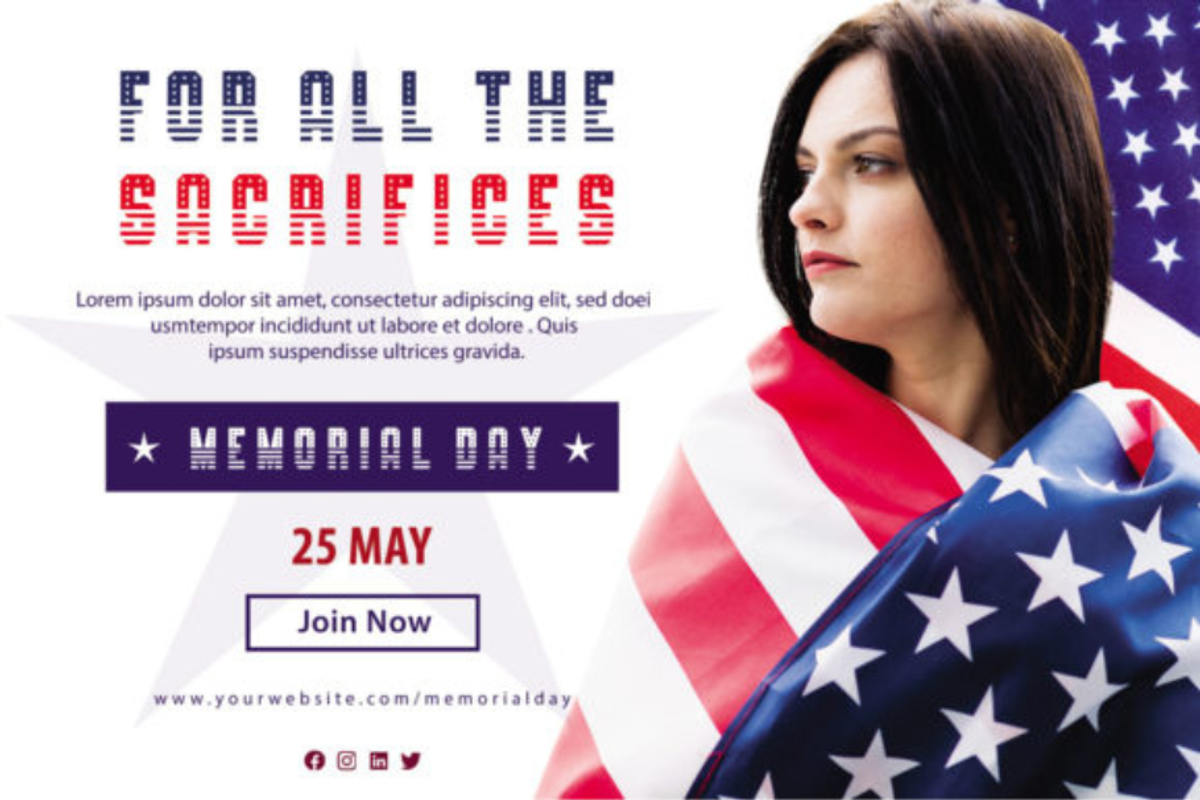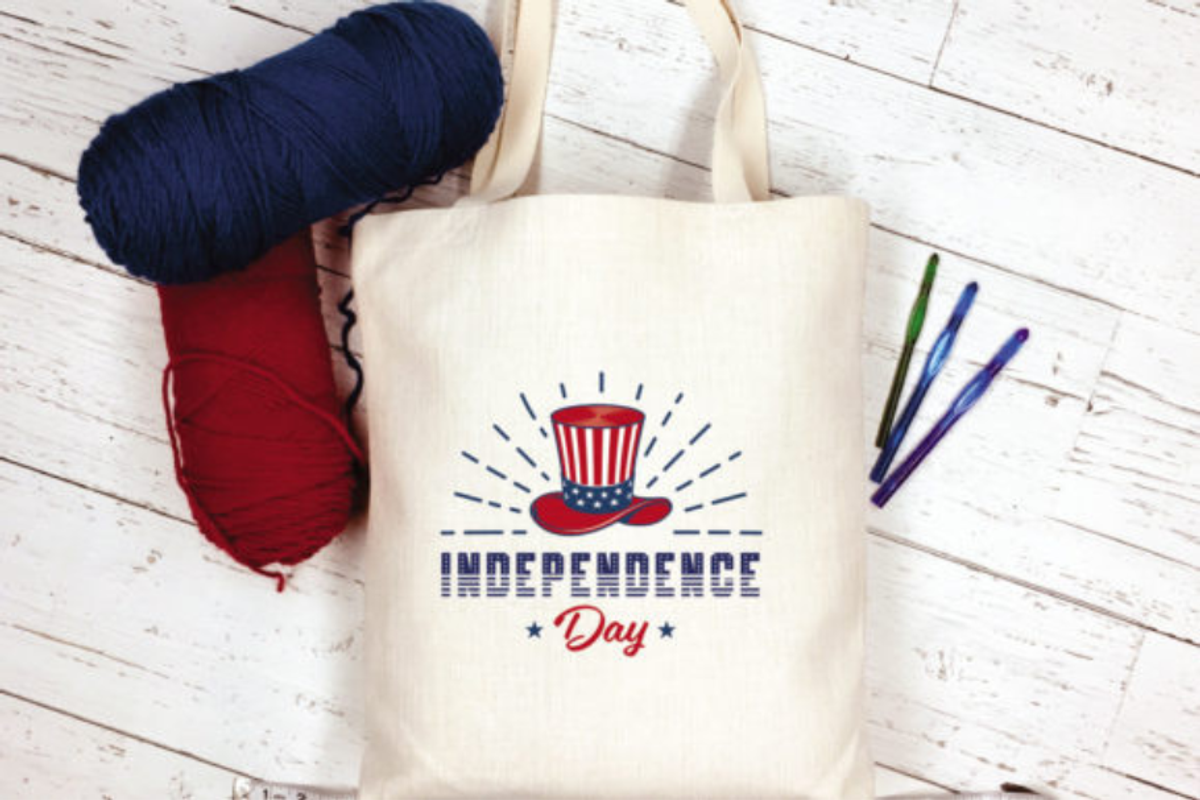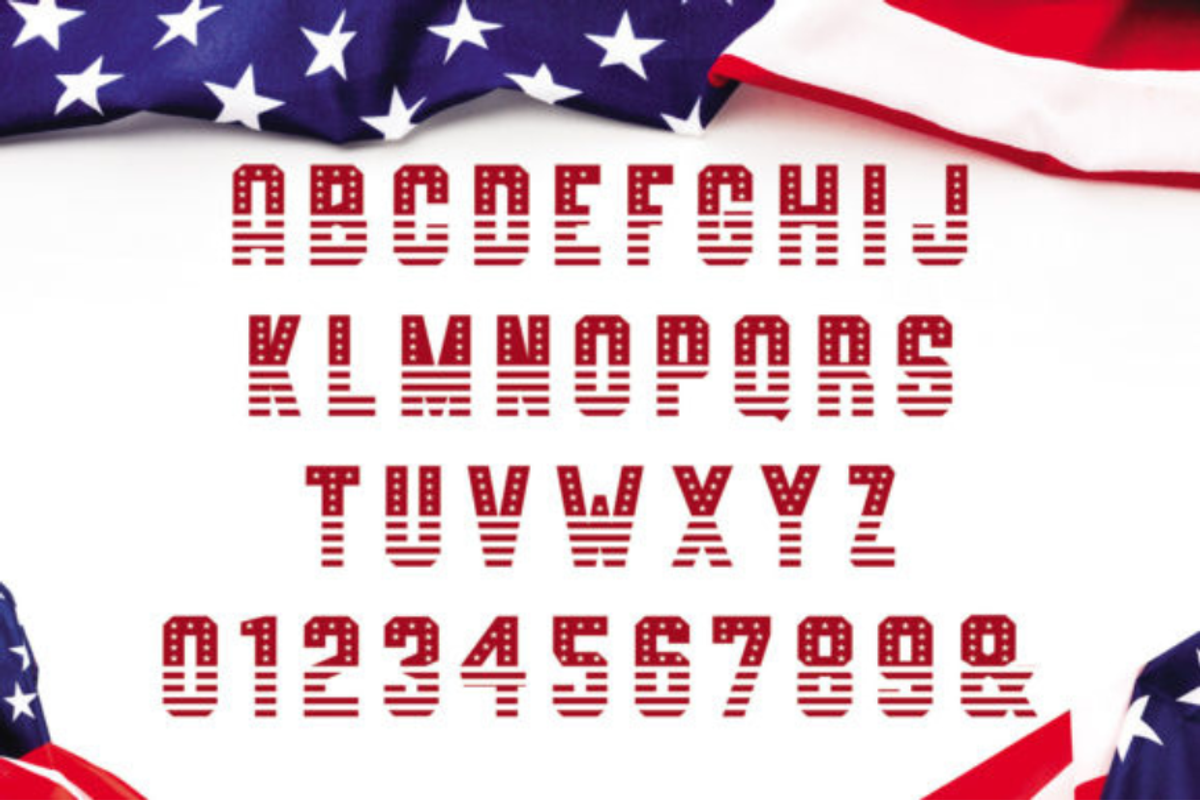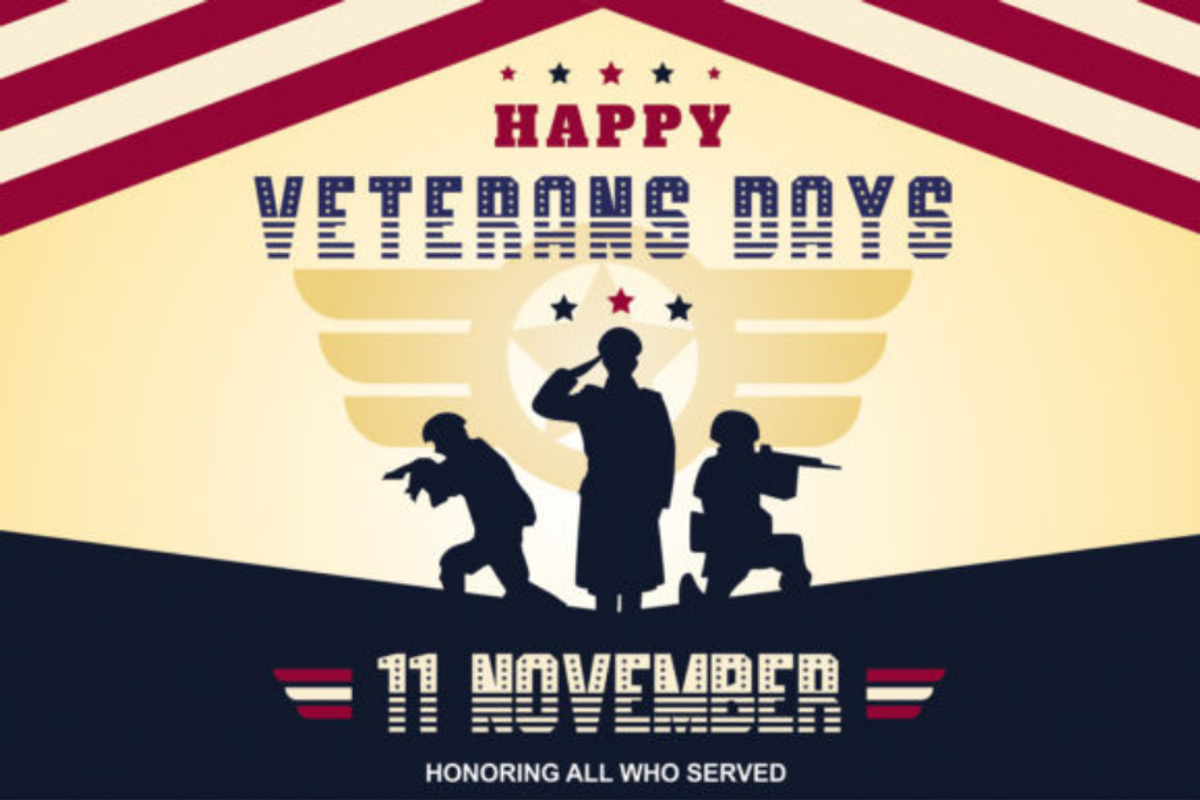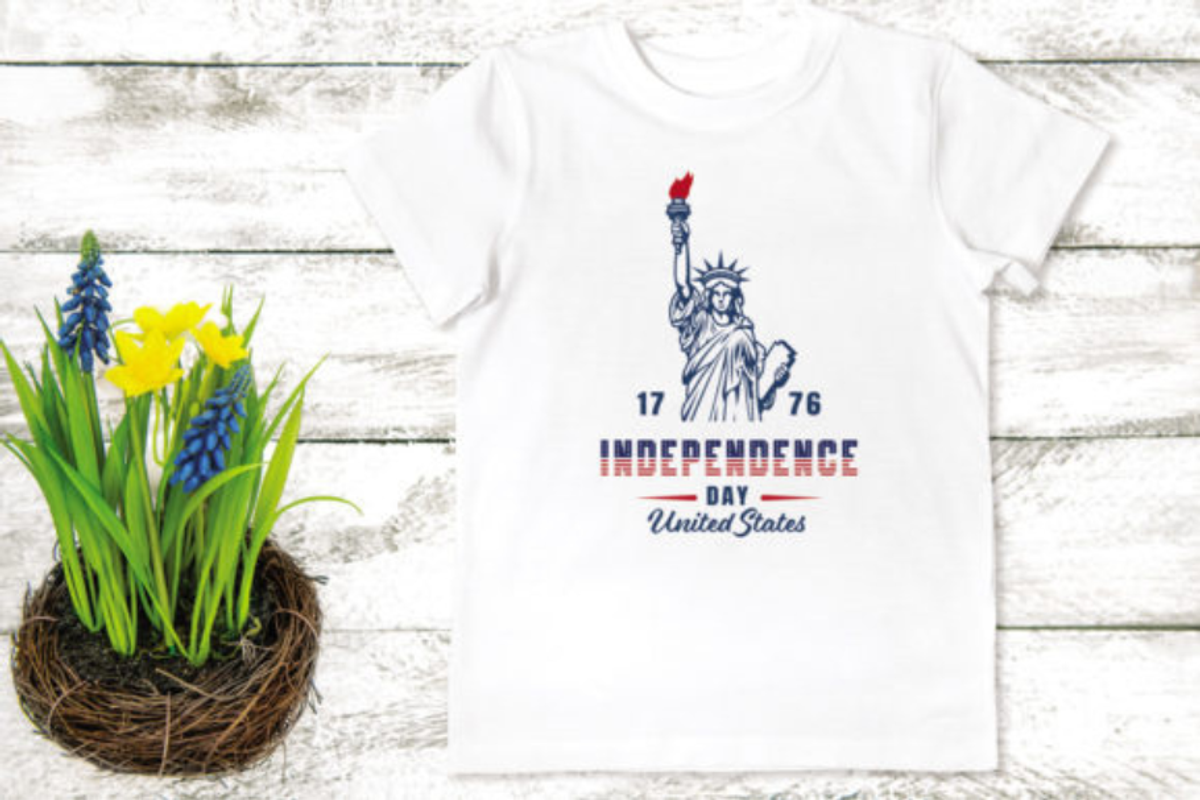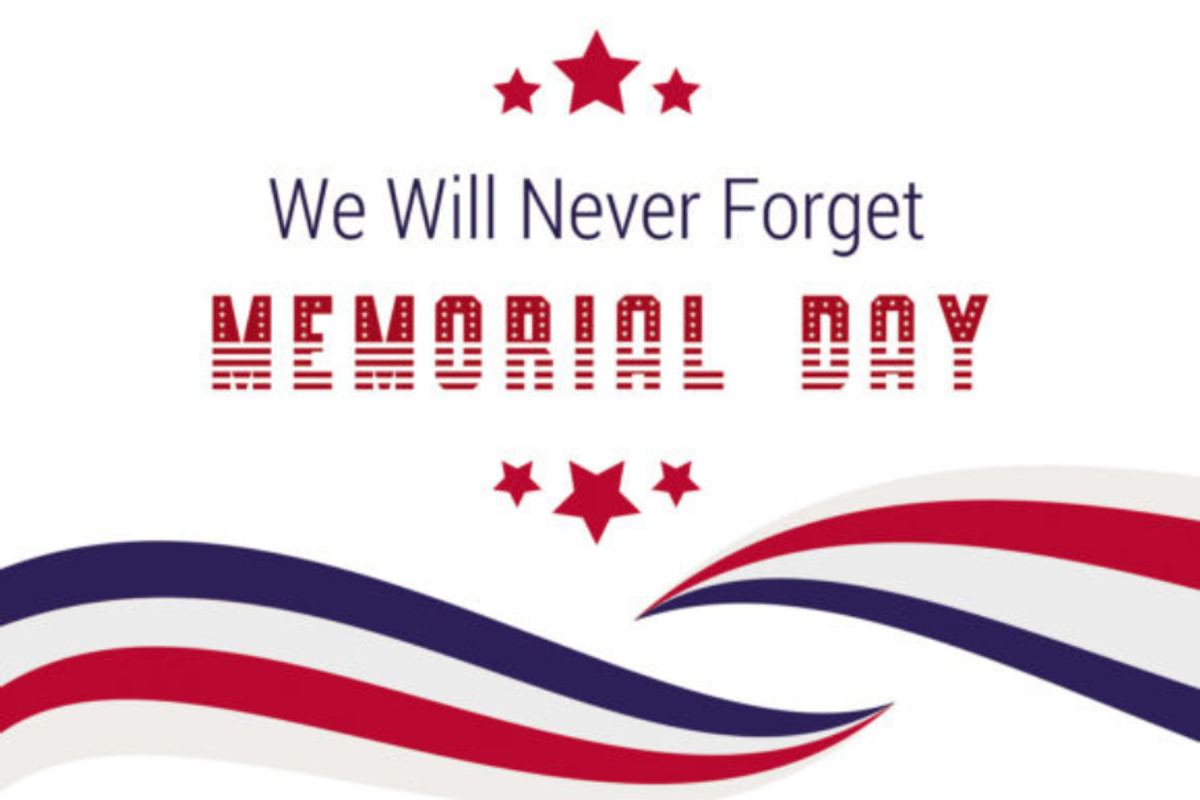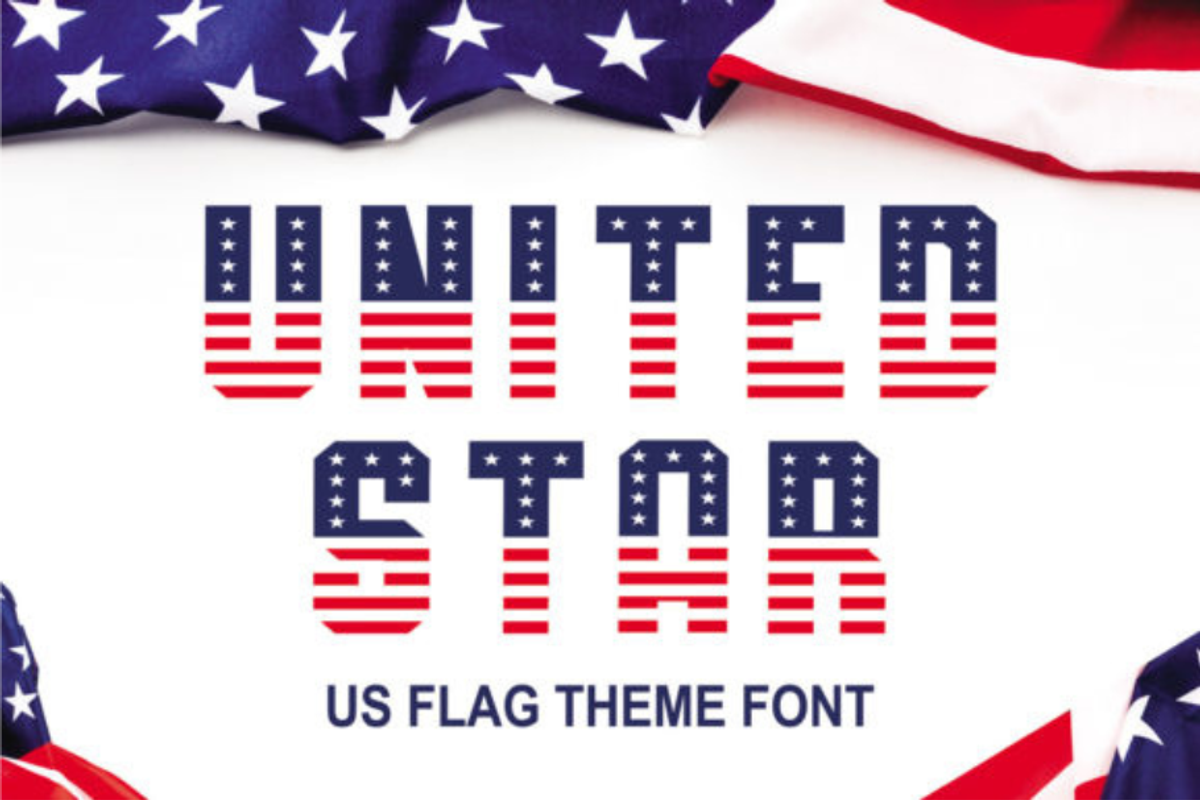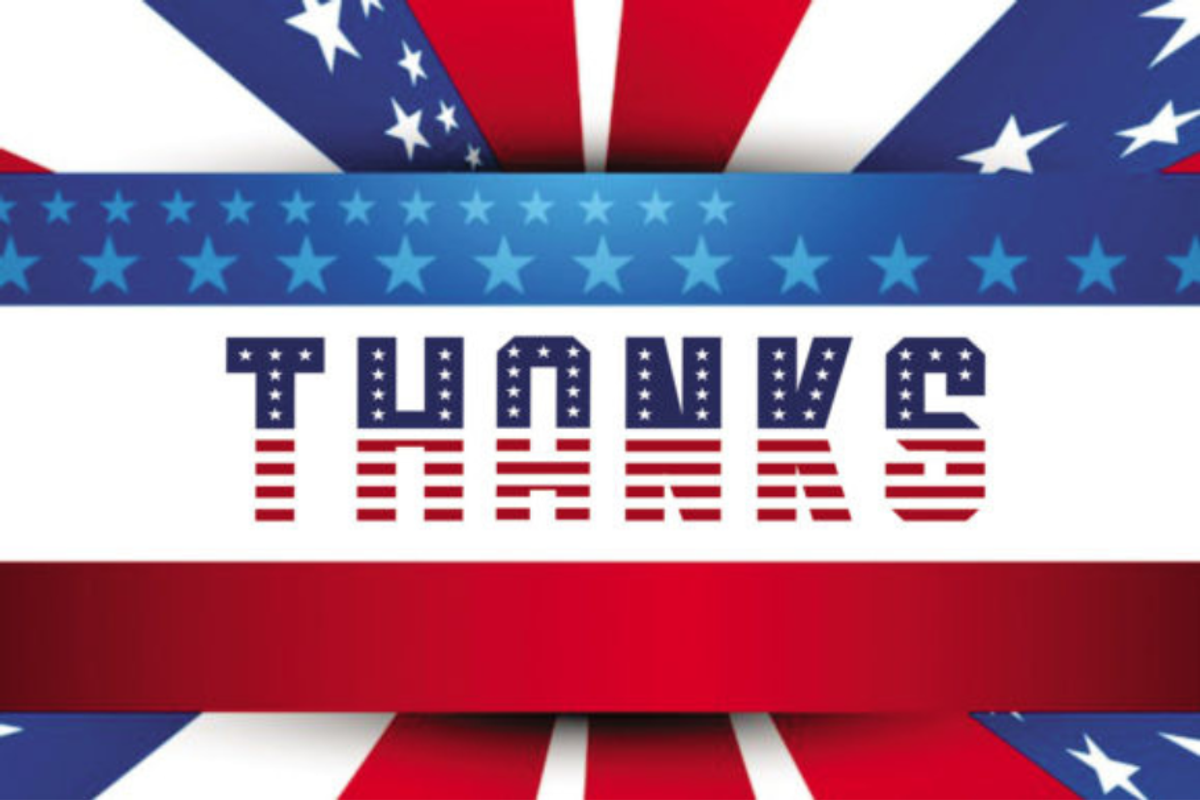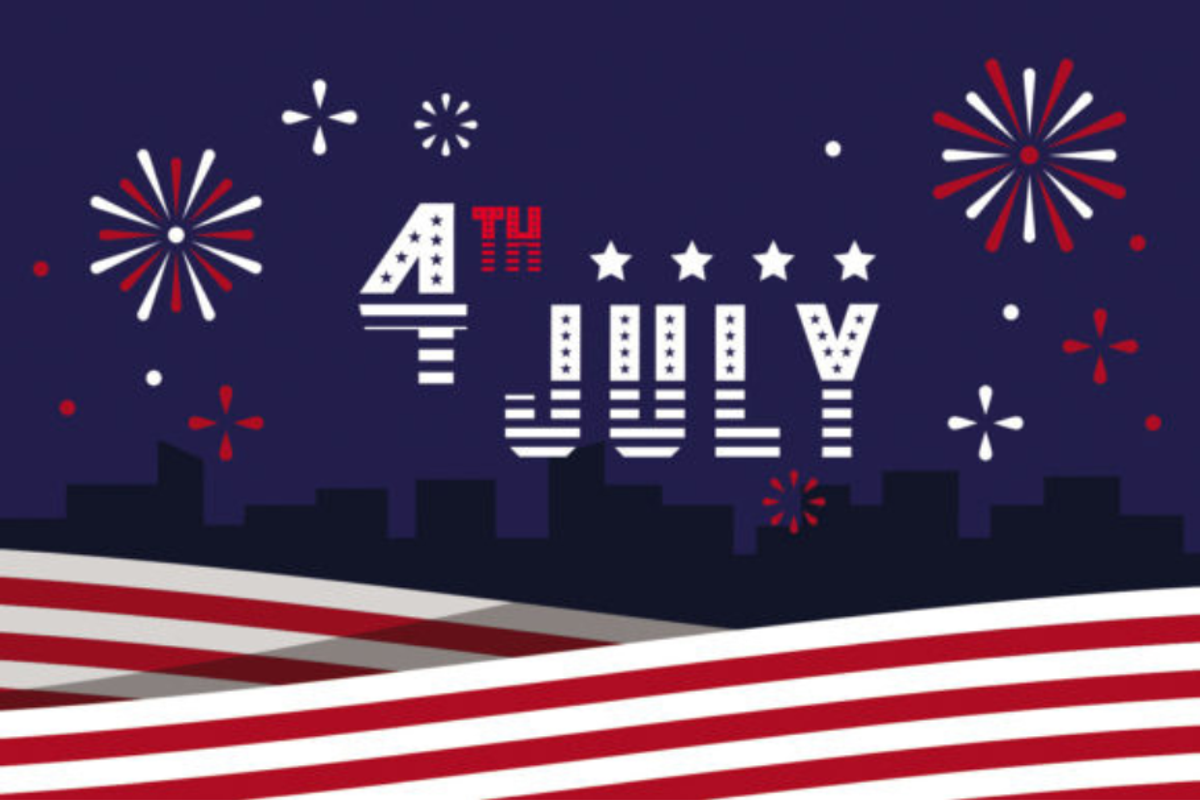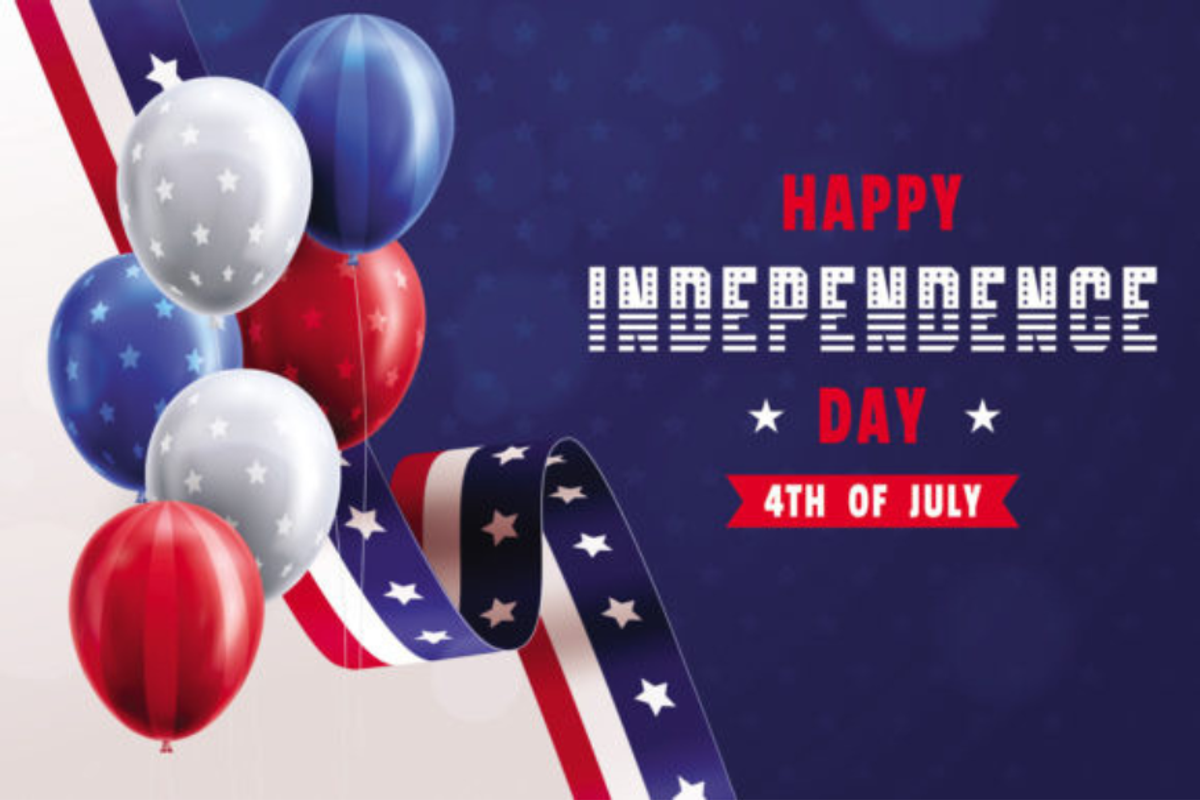
United Star Font A 4th Of July Font
The United Star font stands out as a distinctive and exceptional choice for enhancing various design endeavors. Whether used in branding, headings, wedding designs, invitations, signatures, logos, labels, or beyond, it adds a touch of uniqueness and elevates your projects to new heights!